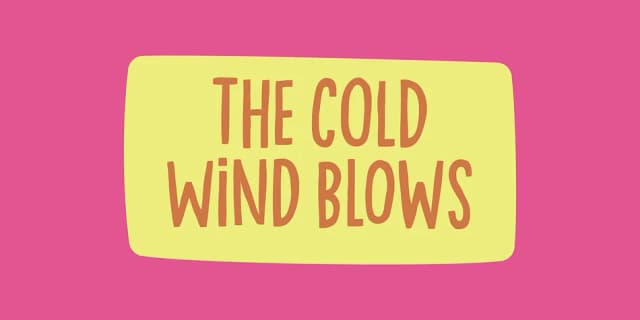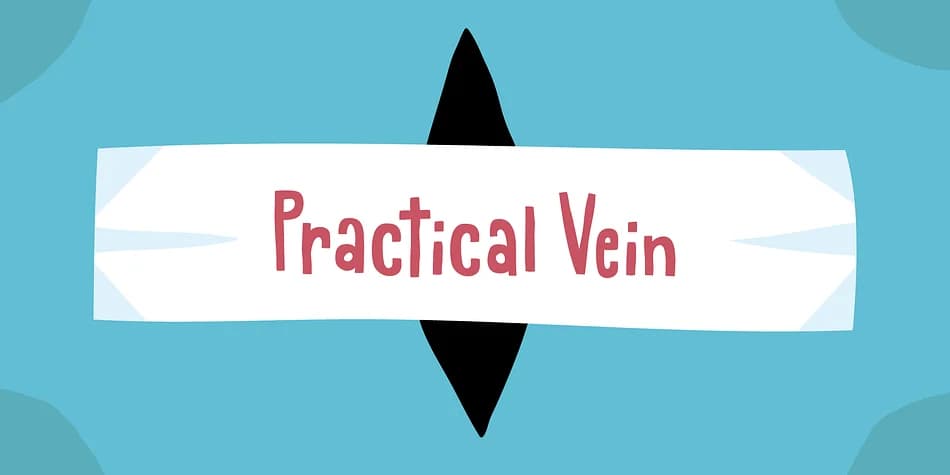
1 / 8About Practical Vein Font
Practical Vein by Bogstav is a hand-drawn decorative font that brings genuine warmth and character to any design project. With soft, rounded letterforms and subtly imperfect strokes, it captures that authentic, organic feel you'd get from someone sitting down and actually drawing with a pen. The irregular quirks aren't flaws; they're precisely what make this font work so well for designs that need to feel personal and lived-in rather than corporate or sterile.
This font truly shines on personalized greeting cards, lifestyle brand Instagram stories, motivational quote graphics, and handmade product labels for independent makers and Etsy sellers. The hand-drawn quality also pairs beautifully with minimalist wedding invitation suites where casual elegance is the priority, or DIY zine layouts that celebrate imperfection as a core design principle. What really sets Practical Vein apart is the automatic alternate characters: three distinctly different versions of each lowercase letter that rotate as you type, creating natural variation without any extra effort on your part. No two lines ever look exactly identical, which prevents your designs from feeling repetitive or mechanical even when setting longer passages of text.
Practical Vein Font is a decorative font that shines as a display or heading face. Pair it with a clean sans-serif or serif font for body text β the contrast creates a clear hierarchy while the two styles stay balanced and easy to read.
Practical Vein Font
by Bogstav